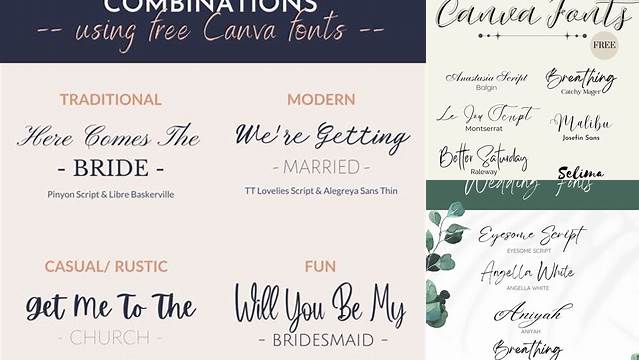
Elegant Free Wedding Fonts For Canva: Your Dream Designs!
Hey there, future newlyweds and design enthusiasts! Planning a wedding can be overwhelming, but designing your invitations, save-the-dates, and other wedding stationery shouldn't be. Canva is an amazing tool for creating beautiful designs, and the right font can make all the difference. Let's dive into the world of free wedding fonts for Canva that will elevate your designs and make your special day even more memorable.
1. Classic Serif Fonts for Wedding Invitations
When it comes to wedding invitations, you can never go wrong with classic serif fonts. These fonts exude elegance, tradition, and sophistication, making them perfect for formal weddings. In the realm of free wedding fonts for Canva, several serif options stand out. Think of fonts like Playfair Display, which offers a refined and graceful look. Its high contrast and delicate serifs make it ideal for headlines and titles, adding a touch of luxury to your invitations. Another great choice is Lora, a well-balanced serif font that's both readable and stylish. Lora works wonderfully for body text, ensuring your guests can easily read all the important details. Then there's Crimson Text, a font that evokes a sense of timeless beauty, perfect for couples who want a classic and sophisticated feel. These serif fonts, available in Canva, help set the tone for a memorable and elegant wedding. Using these fonts can truly make your invitations stand out and give your guests a glimpse into the special day you have planned.
2. Modern Sans-Serif Fonts for Contemporary Weddings
For couples planning a more modern and minimalist wedding, sans-serif fonts are an excellent choice. These fonts offer a clean, contemporary look that's both stylish and easy to read. When exploring free wedding fonts for Canva, consider options like Montserrat, a versatile sans-serif font that works well for both headlines and body text. Its clean lines and balanced design make it perfect for a modern wedding aesthetic. Another great option is Raleway, a sophisticated sans-serif font with a slightly more elegant feel. Raleway is particularly effective for creating a chic and stylish invitation. And don't forget Open Sans, a highly readable and neutral sans-serif font that ensures your wedding details are clear and concise. These fonts, readily available in Canva, help create a modern and fresh feel for your wedding stationery. Opting for sans-serif fonts can give your wedding a contemporary edge, reflecting the couple's modern sensibilities and creating a visually appealing invitation suite that stands out from the traditional norm.
3. Script Fonts for Elegant Wedding Calligraphy
Script fonts add a touch of romance and elegance to any wedding design. These fonts mimic the look of handwritten calligraphy, creating a personal and intimate feel. When looking for free wedding fonts for Canva, keep an eye out for options like Great Vibes, a beautiful script font that's perfect for adding a touch of whimsy to your invitations. Its elegant swirls and flourishes make it ideal for headlines and names. Another fantastic choice is Allura, a more subdued script font that's still incredibly stylish. Allura works well for adding a touch of elegance without being too overwhelming. And then there's Pacifico, a casual yet charming script font that's perfect for creating a relaxed and friendly vibe. These script fonts, easily accessible in Canva, can transform your wedding stationery into a work of art. Incorporating script fonts can infuse your wedding invitations with a sense of romance and sophistication, giving them a handcrafted feel that resonates with your guests.
4. Unique and Decorative Fonts for Themed Weddings
If you're planning a themed wedding, using unique and decorative fonts can help tie your design together and create a cohesive look. In the world of free wedding fonts for Canva, there are plenty of options to choose from. For a rustic wedding, consider fonts like Amatic SC, a hand-drawn font that adds a touch of charm and informality. For a vintage wedding, try fonts like Playfair Display Italic, which offers a classic and elegant feel with a vintage twist. And for a bohemian wedding, explore fonts like Arvo, a geometric slab-serif font that's both modern and earthy. These unique fonts, all available in Canva, can help you create wedding stationery that perfectly reflects your theme. Selecting a font that complements your wedding theme can significantly enhance the overall aesthetic, creating a memorable and visually stunning invitation suite that truly captures the essence of your special day.
5. Combining Fonts: Serif and Sans-Serif Pairings
One of the best ways to create a visually appealing wedding design is to combine different fonts. A classic pairing is using a serif font for headlines and a sans-serif font for body text. This creates a balance between elegance and readability. When experimenting with free wedding fonts for Canva, try pairing Playfair Display (serif) with Montserrat (sans-serif) for a sophisticated look. Or, consider combining Lora (serif) with Raleway (sans-serif) for a more modern feel. Another great pairing is Crimson Text (serif) with Open Sans (sans-serif) for a timeless and classic aesthetic. By combining different fonts, you can add depth and interest to your wedding stationery. Mixing and matching fonts allows you to create a unique and personalized design that reflects your individual style as a couple, resulting in an invitation suite that is both visually appealing and easy to read.
6. Choosing Fonts Based on Wedding Theme
Selecting the right font should align with your wedding's theme. A beach wedding might benefit from a light, airy sans-serif, while a formal ballroom wedding calls for an elegant serif. Consider fonts like Lobster for a vintage theme or Bebas Neue for a modern, minimalist vibe. With free wedding fonts for Canva, your theme can truly shine. By carefully selecting fonts that complement your wedding's theme, you can create a cohesive and visually stunning invitation suite that captures the essence of your special day.
7. Font Size and Readability Tips
Readability is key, guys! Ensure your font size is large enough for guests to easily read the details. Stick to at least 12pt for body text and adjust headlines accordingly. A readable font from the collection of free wedding fonts for Canva will make a big difference. Clear and legible fonts ensure that your guests can easily access all the important information, such as the date, time, and location of your wedding.
8. Kerning and Letter Spacing Adjustments
Pay attention to kerning (the space between individual letters) and letter spacing. Adjust these settings in Canva to ensure your text looks balanced and professional. Even the best free wedding fonts for Canva can benefit from these tweaks. Fine-tuning the kerning and letter spacing can significantly enhance the overall aesthetic appeal of your wedding invitations, creating a polished and professional look.
9. Color Considerations for Wedding Fonts
The color of your font should complement your overall color scheme. Dark fonts on a light background are generally easiest to read. Experiment with different shades and hues within Canva's free wedding fonts for Canva to find the perfect match. Selecting a font color that harmonizes with your wedding's color palette can create a visually cohesive and appealing invitation suite.